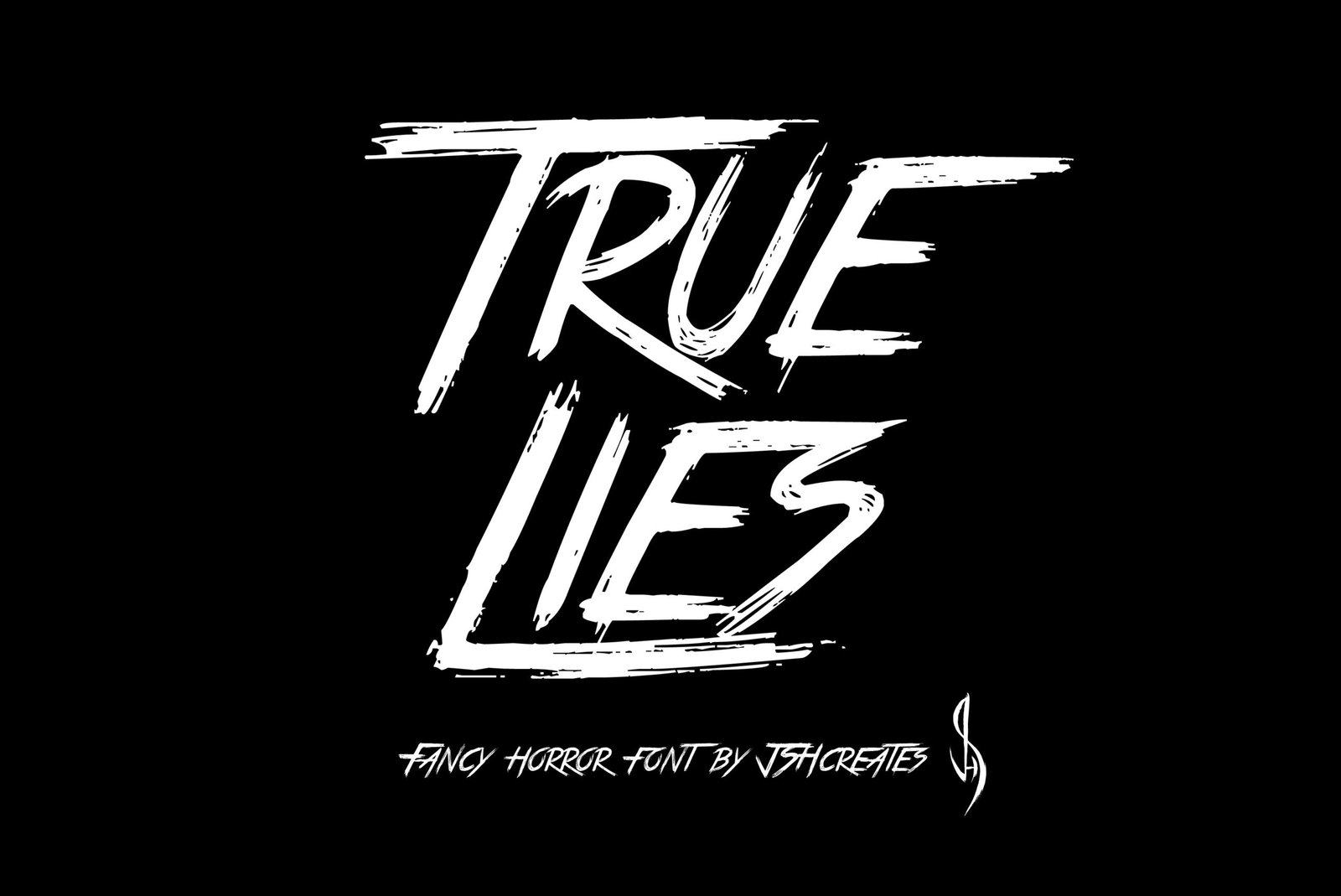
True Lies Font
Fancy horror font. “True Lies” Perfect for advertising and display purposes, including banners, book covers, shirts, posters, logos and much more!
This is an ALL Caps font, including numbers, characters and punctuation.